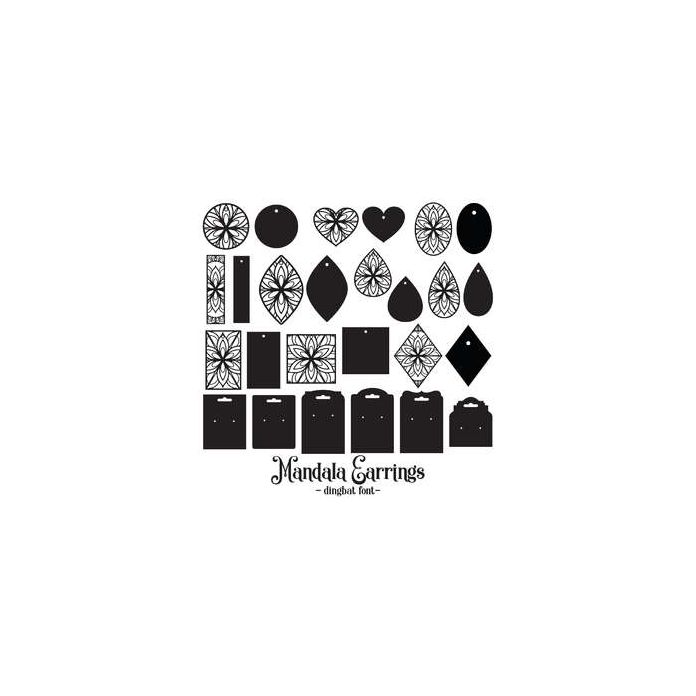
Handdrawn Mandala Earrings Dingbat Font. With 20 earring elements that can be used along or layered and 6 backing cards to make your own jewellery. All are allocated to upper and lowercase letters and can be accessed via the glyphs panel / character map - just type to access!